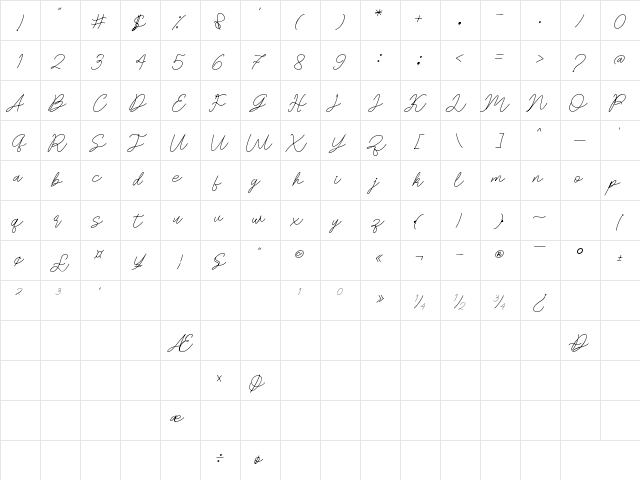
Beatherlove Regular
| Designer | Mengulirpena_ 2020 (Deny Dwi Kurniawan) |
Design Context for Beatherlove Typeface
Beatherlove is a composed and adaptable typeface that performs quietly and consistently across a wide range of design contexts.